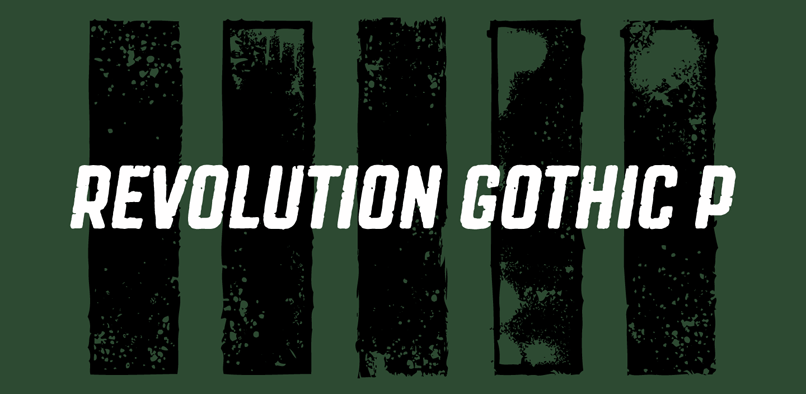
Revolution Gothic P
About Revolution Gothic P
Revolution Gothic P is a distressed offshoot of Revolution Gothic, itself an arranged and extended version of PAG Revolucion released from Prop-A-Ganda type foundry in 2008. The original font is inspired by retro propaganda posters and wallpainting in…